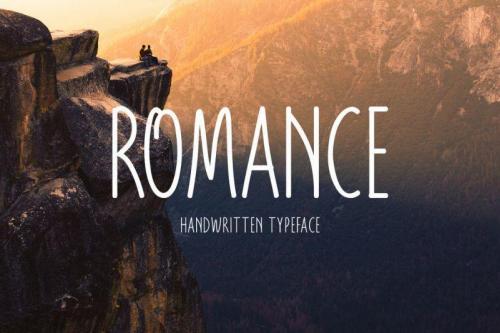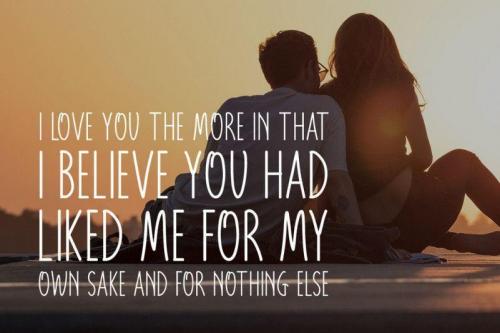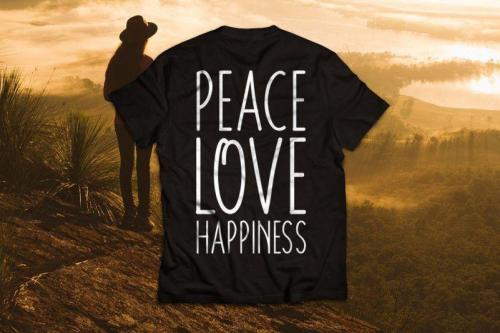
Romance Font is the perfect handwritten typeface for quotes, posters, printables, and other projects. It’s casual and easy to read with a natural half-script flavor.